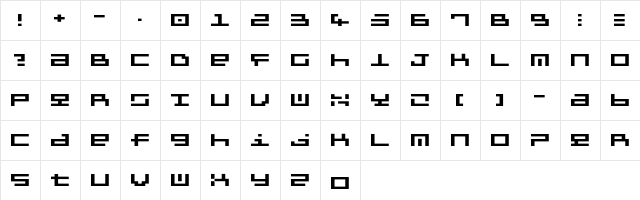
Formant237Book Regular
Design Context for Formant237Book Typeface
Formant237Book is a composed and adaptable typeface that performs quietly and consistently across a wide range of design contexts.